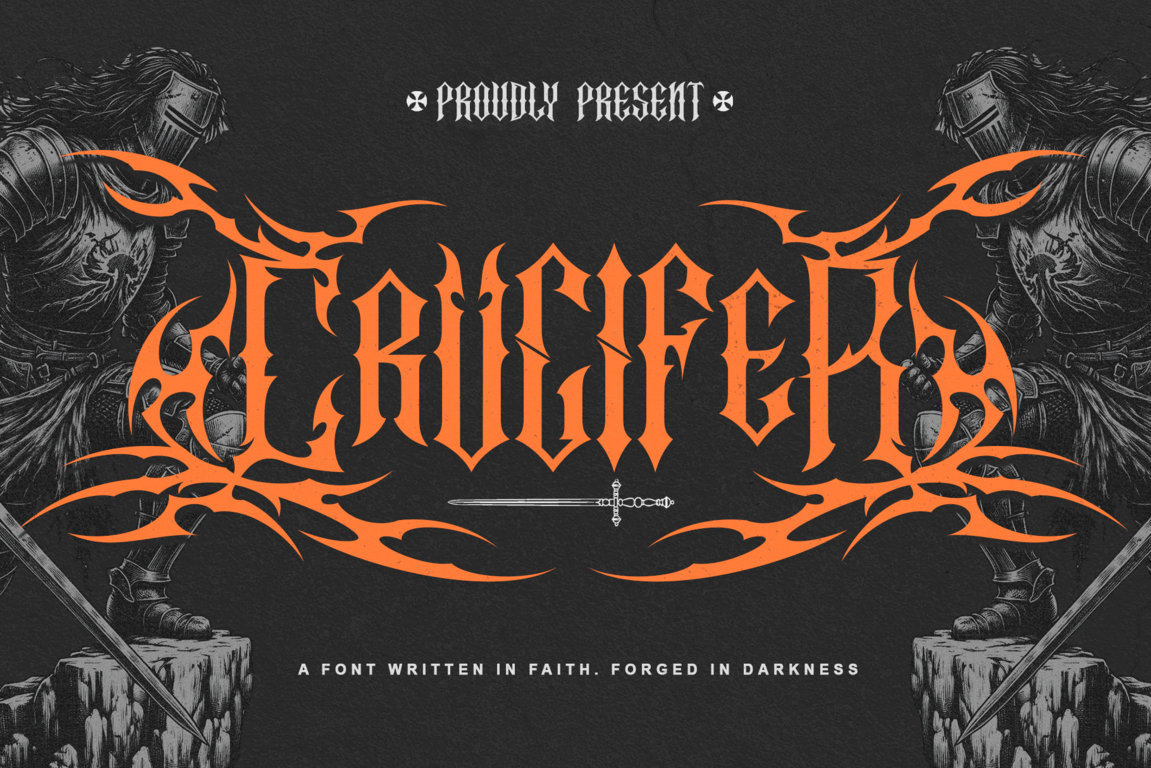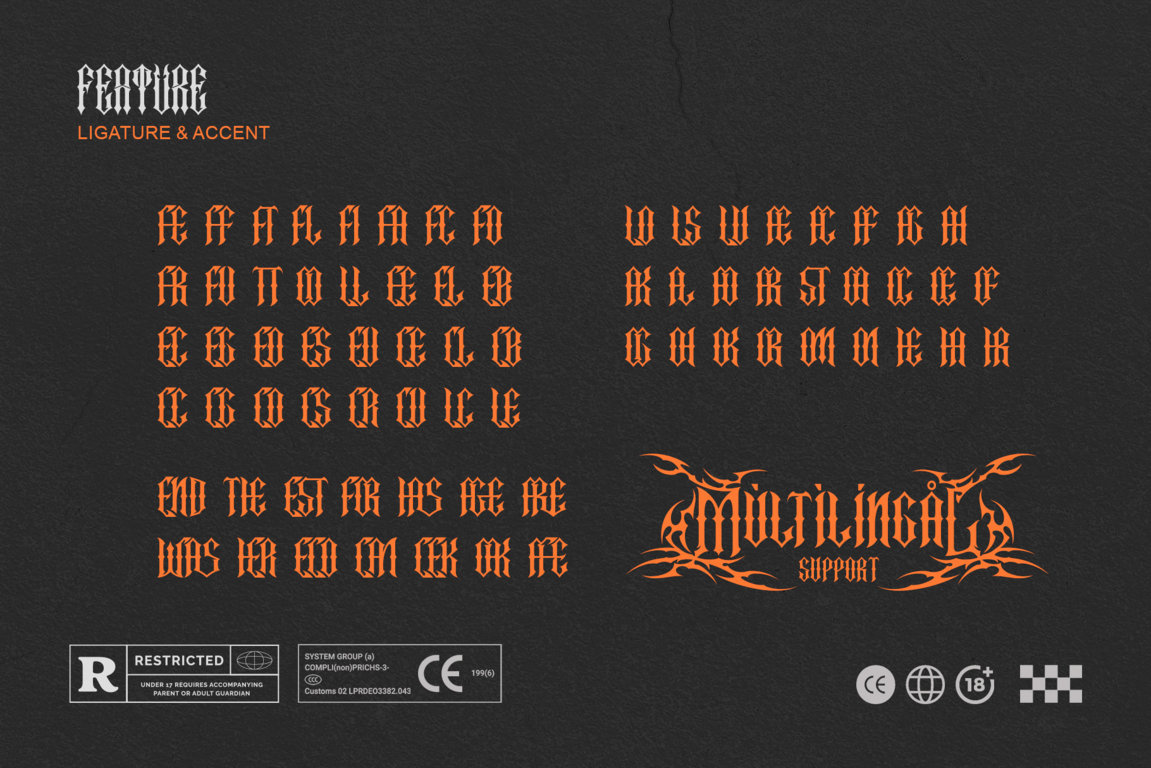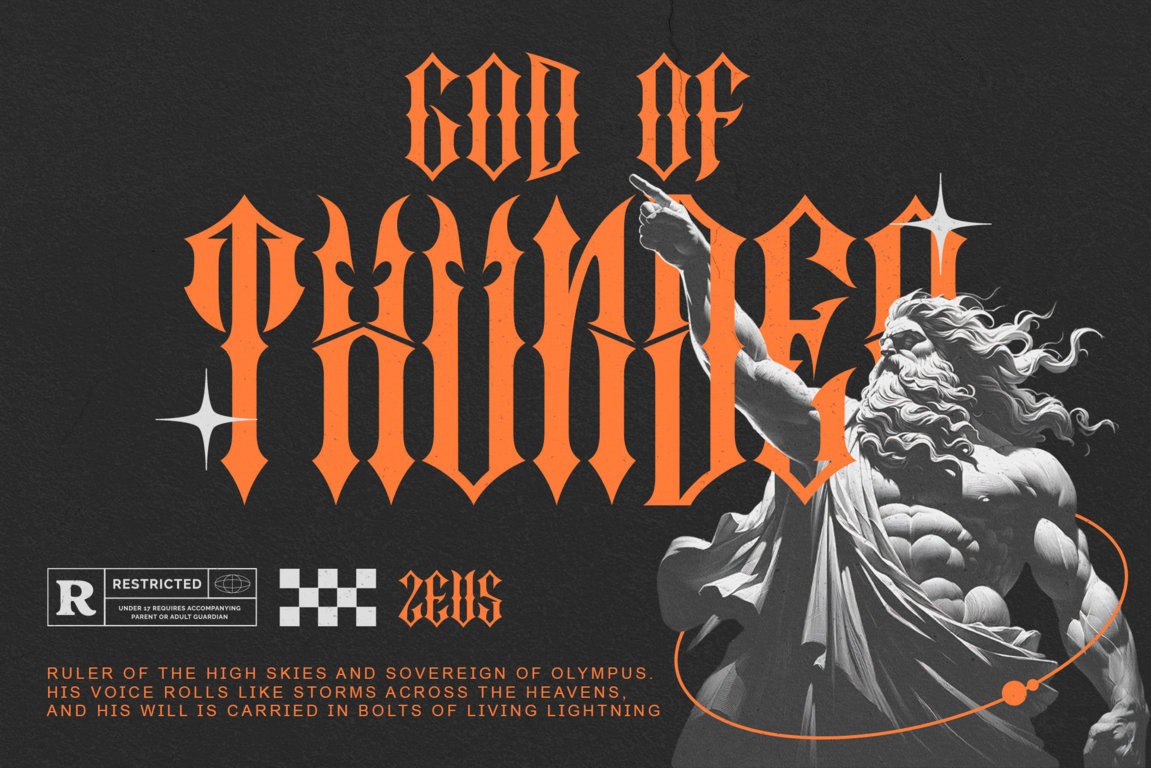
Crucifer – Dark Gothic Blackletter Font
Step into sacred darkness with Crucifer, a powerful gothic blackletter font inspired by ancient faith, shadowed rituals, and medieval architecture. Defined by razor-sharp strokes, tall, dramatic letterforms, and heavy gothic structure, Crucifer delivers a commanding visual presence that feels carved from iron rather than written with ink. Its dark, authoritative style captures the essence of cathedral engravings, forbidden manuscripts, and occult symbolism.
Built for high-impact designs, Crucifer is ideal for album covers, metal band logos, dark fantasy titles, horror visuals, tattoo lettering, posters, and cinematic typography. This font doesn’t decorate—it dominates. Every letter stands with solemn intensity, transforming typography into a symbol of devotion, power, and darkness. Fully PUA encoded and rich in OpenType features, Crucifer gives you complete control to create bold, dramatic, and unforgettable visual identities.
• Gothic blackletter display style
• Uppercase letters
• Alternates, swashes, titling characters & ligatures
• Numerals & punctuation
• Multilingual support: ä ö ü Ä Ö Ü ß ¿ ¡